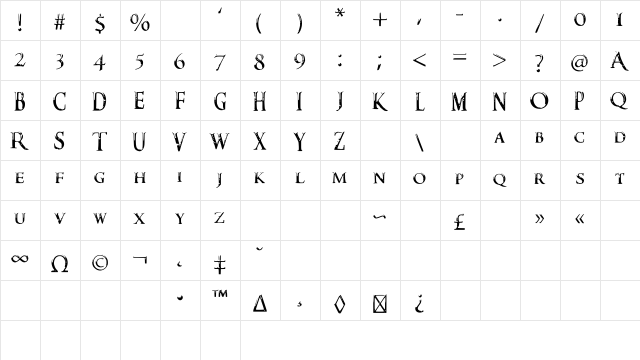
DarksSkyrimFont Medium
Design Context for DarksSkyrimFont Typeface
DarksSkyrimFont is a composed and adaptable typeface that performs quietly and consistently across a wide range of design contexts.